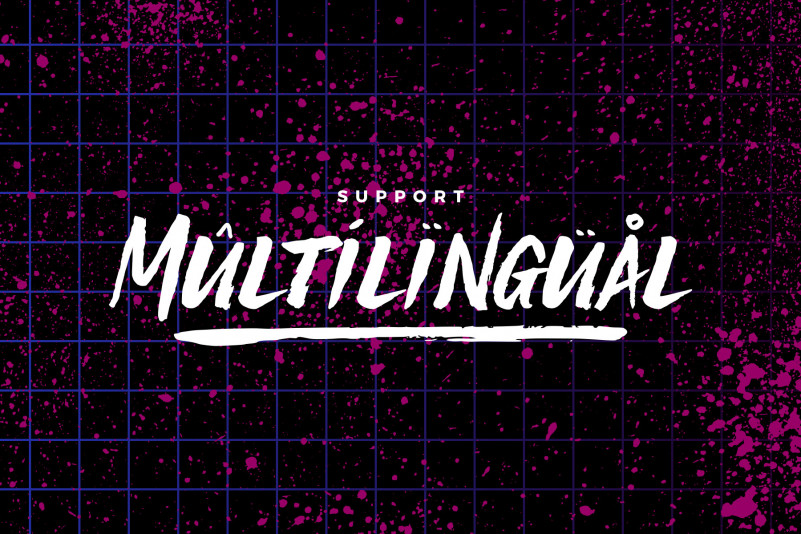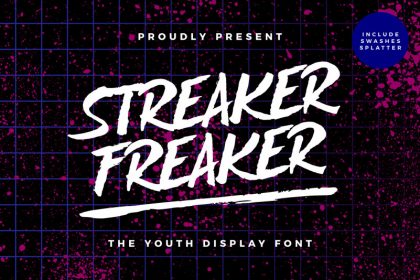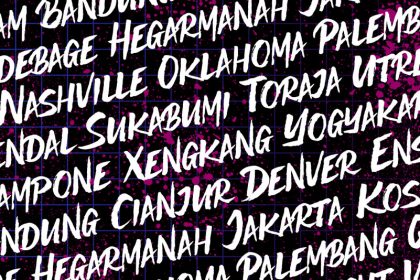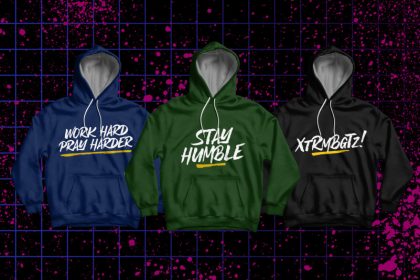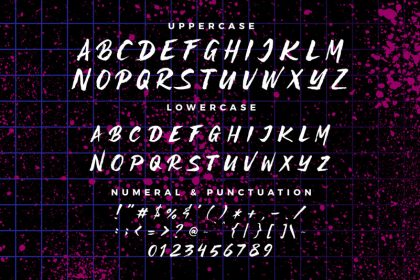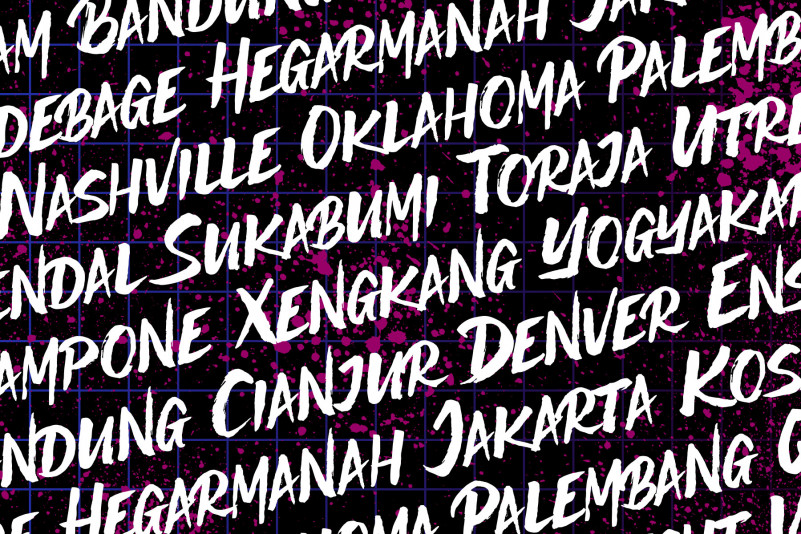
Streaker Font
STREAKER FREAKER The Youth Display Font.
This is an expressive brush letter that can used for any kind of commercial projects. You can built a young and passionate feels by using this font. Recommended for t-shirts, hoodies, logos, menus, accessories, brand promotions and so much more!